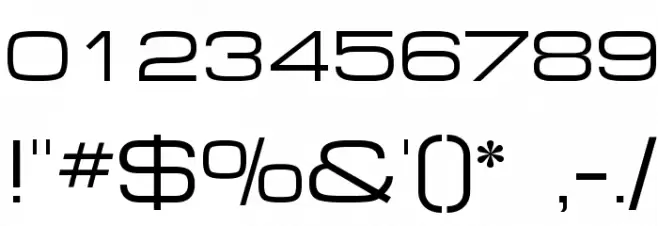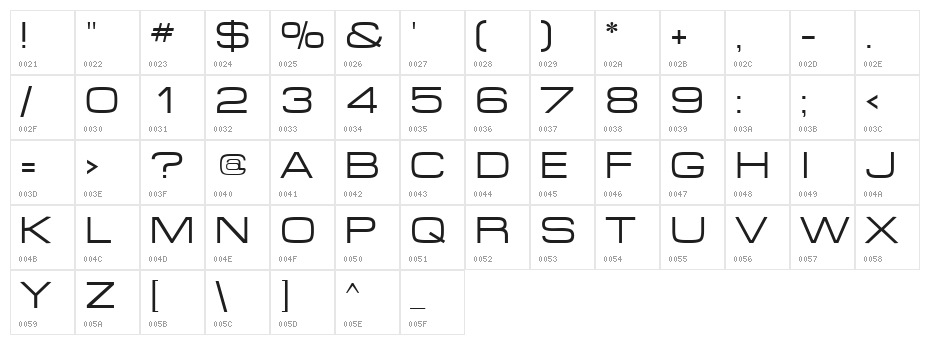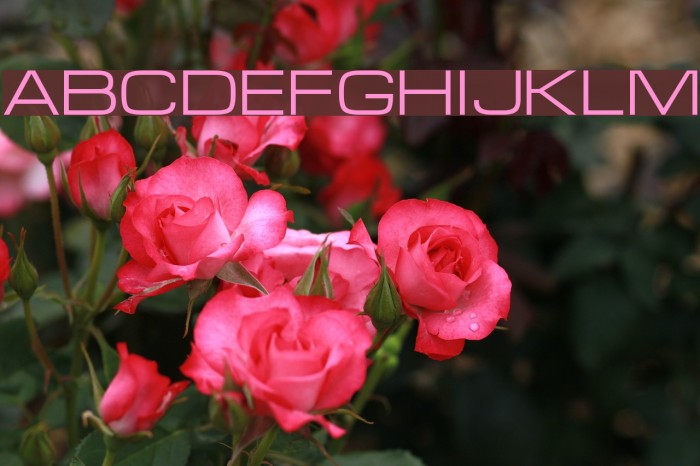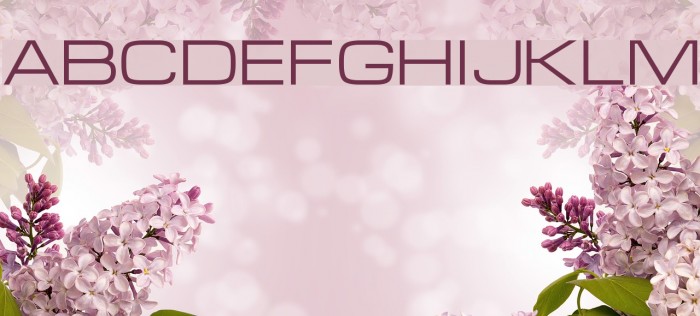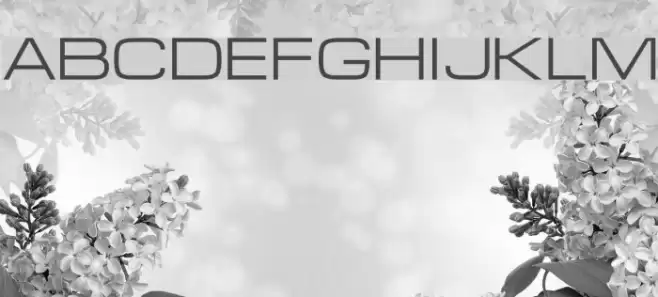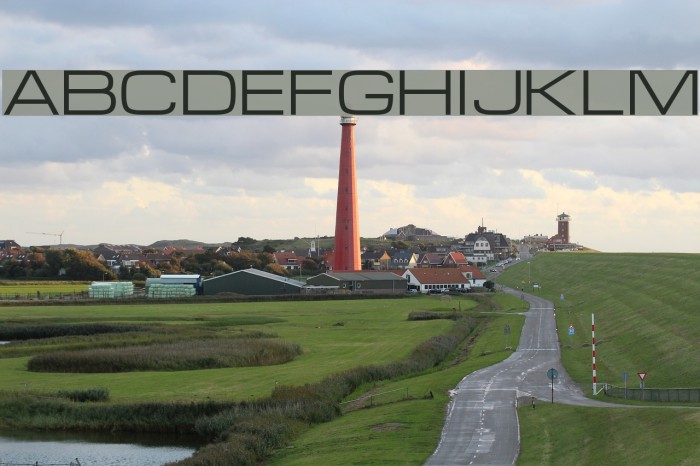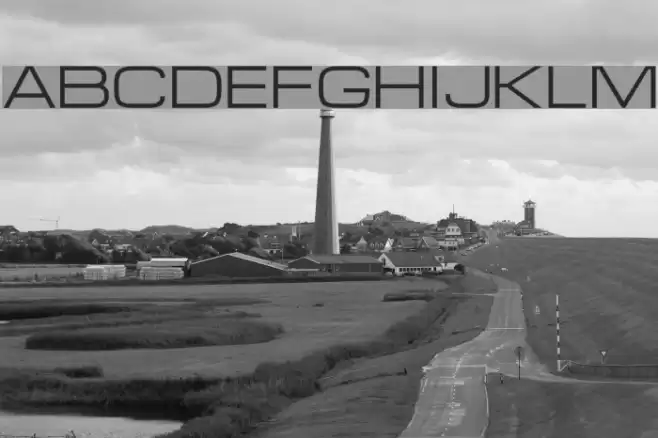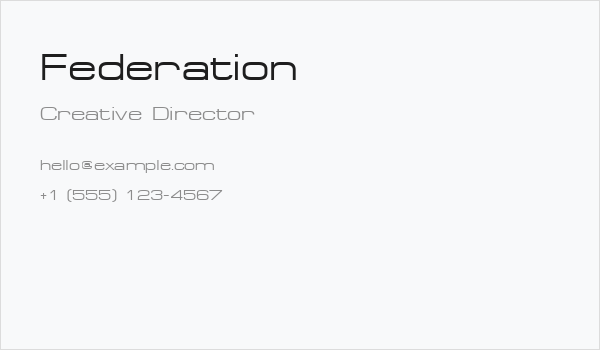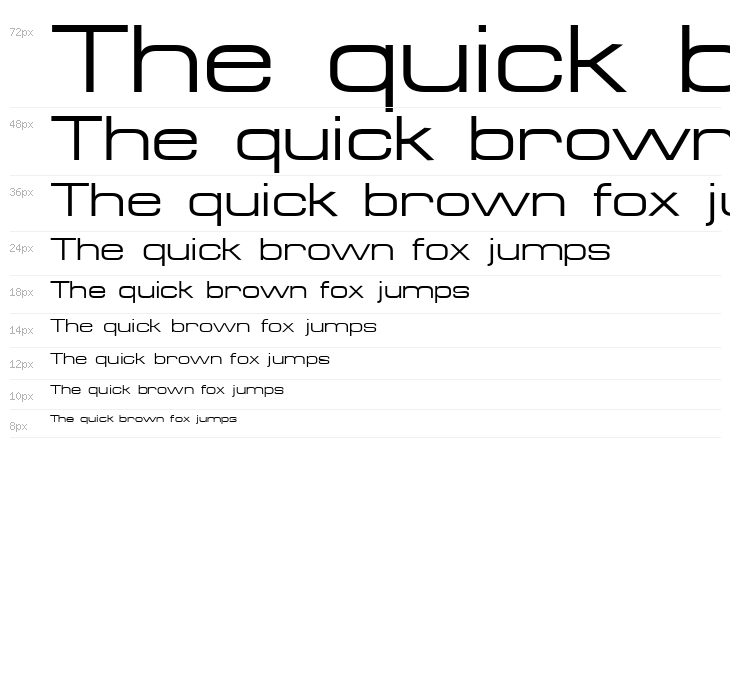
Federation Font
Federation Description
This font features a sleek, modern design with a geometric structure. The characters are clean and minimalistic, with a uniform stroke width that gives it a futuristic appearance. The uppercase letters are bold and commanding, while the lowercase letters maintain a consistent style that complements the overall aesthetic. The numerals are clear and easy to read, making them suitable for digital displays. Special characters are distinct and maintain the font's cohesive look. The font's design is versatile, making it suitable for a variety of applications, from digital interfaces to print media.
| Use Case | Headlines, Digital interfaces, Branding |
| Proposed Projects | Ideal for tech branding, digital interfaces, modern advertising, and futuristic-themed projects. |